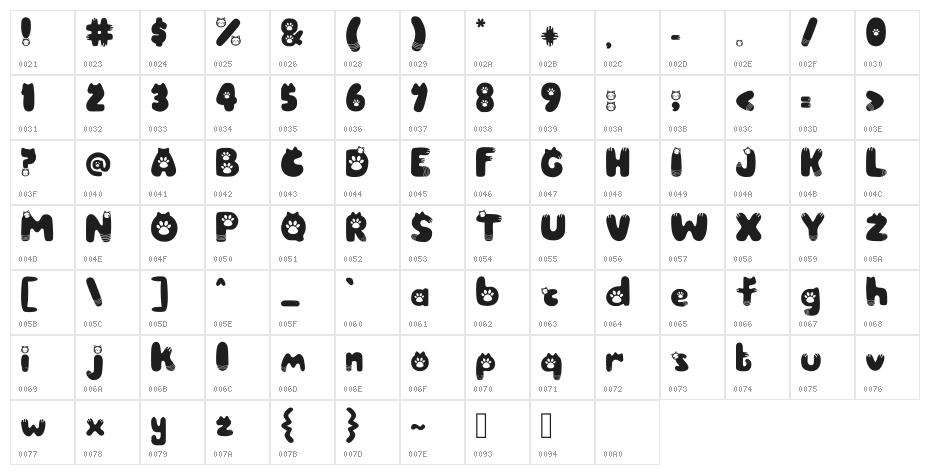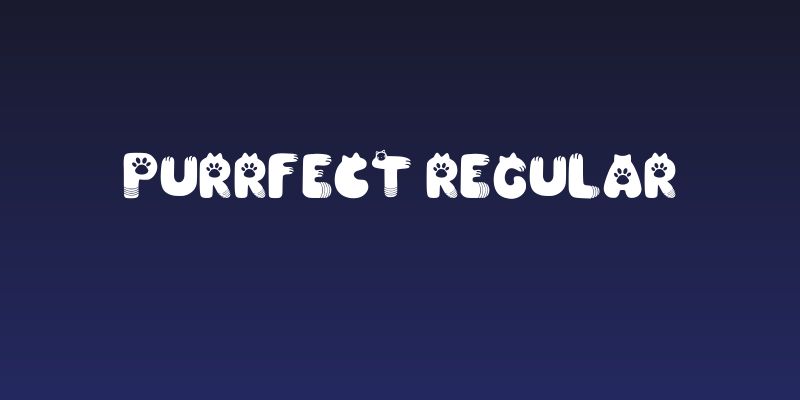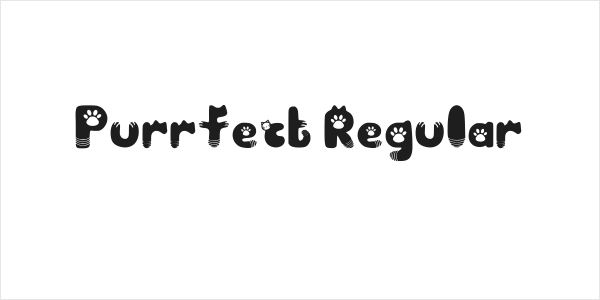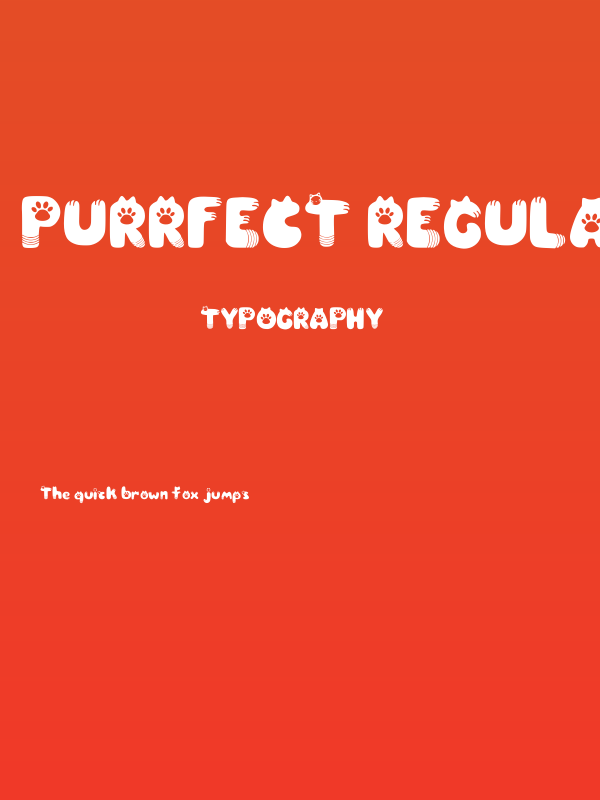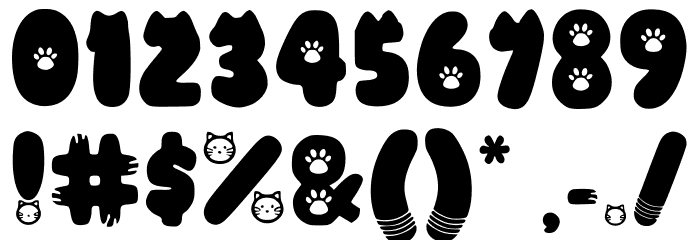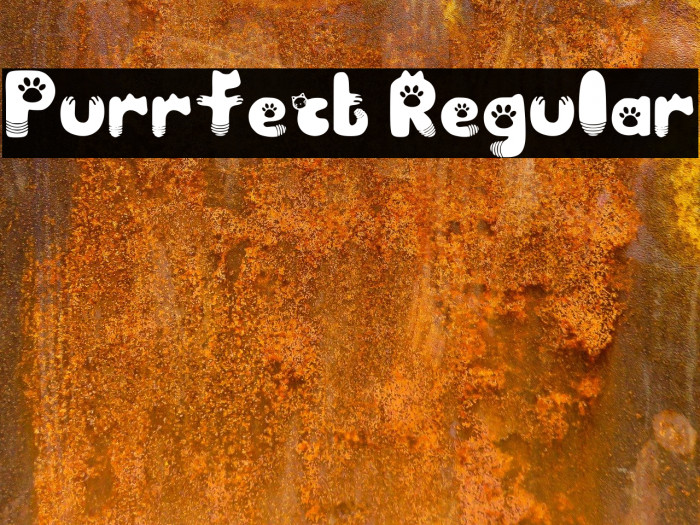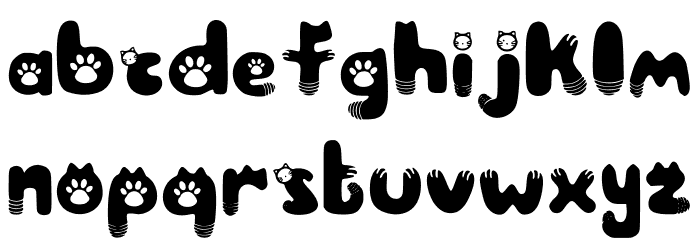
Purrfect Regular Font
Purrfect Regular Description
This playful and whimsical font features bold, rounded characters with charming cat-themed elements integrated into each letter. The design includes paw prints and cat faces, adding a unique and fun touch. The letters are thick and substantial, making them highly visible and engaging. This font is perfect for projects that require a lighthearted and friendly aesthetic, such as children's books, pet-related branding, or playful event invitations. The characters are evenly spaced, ensuring readability while maintaining a cohesive and delightful appearance.
| Use Case | Logos, Headlines, Decorative Text |
| Proposed Projects | Ideal for children's books, pet branding, playful invitations, and whimsical designs. |